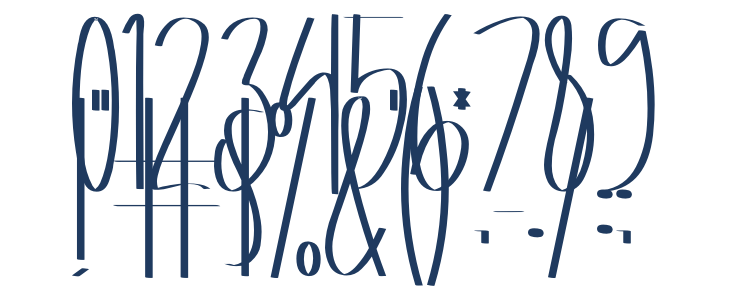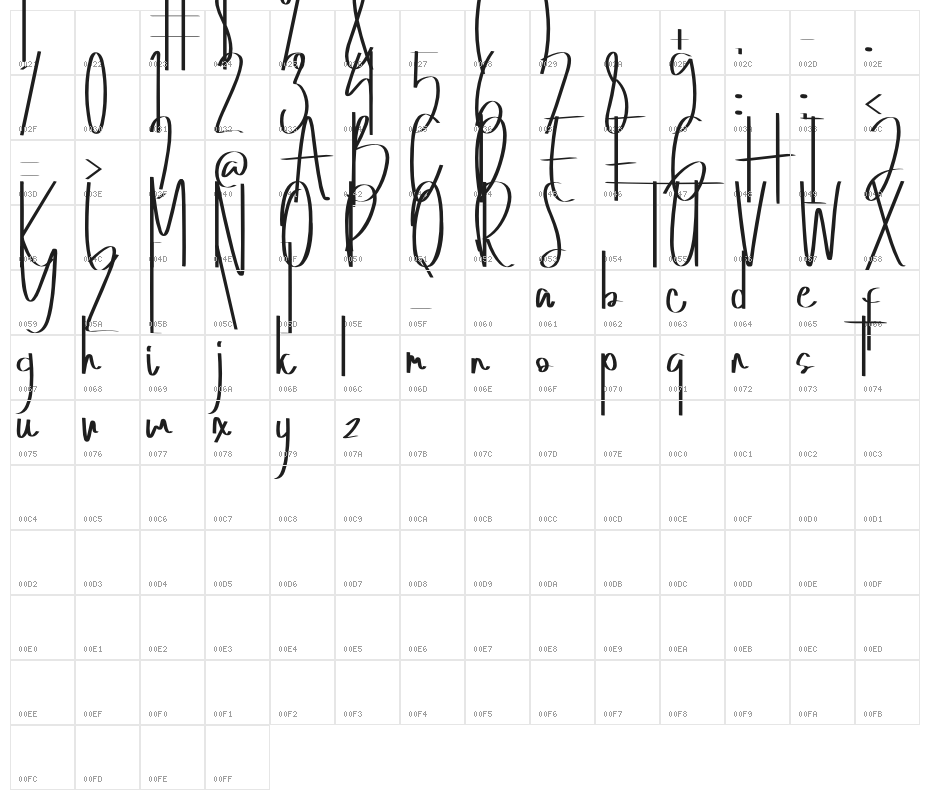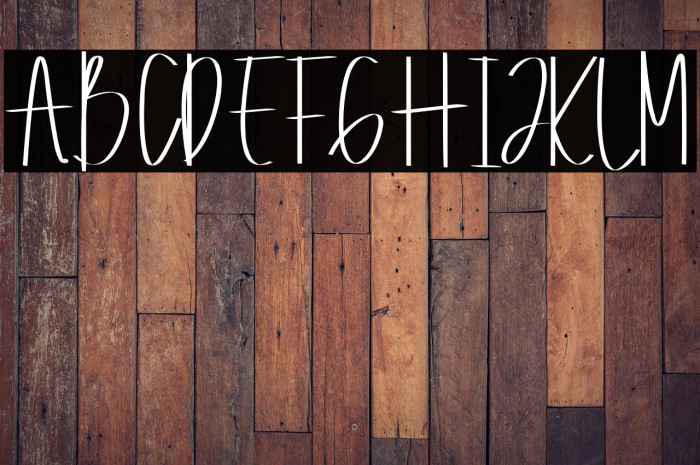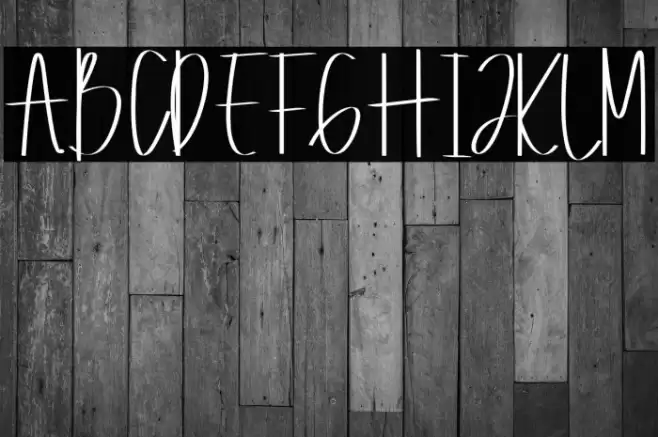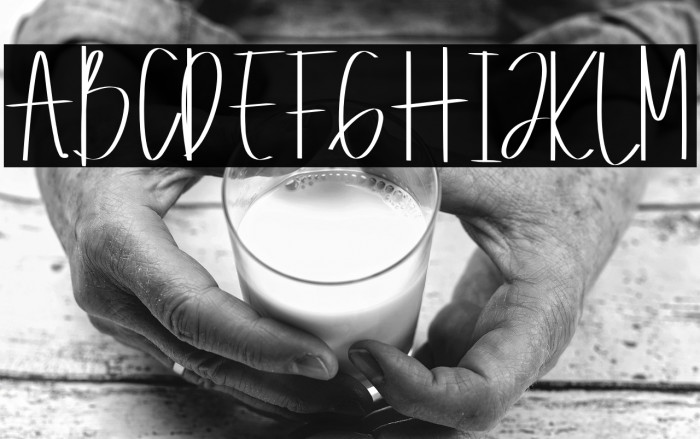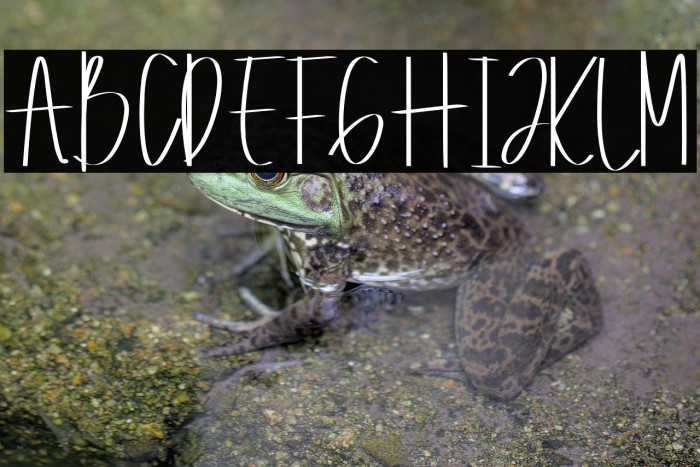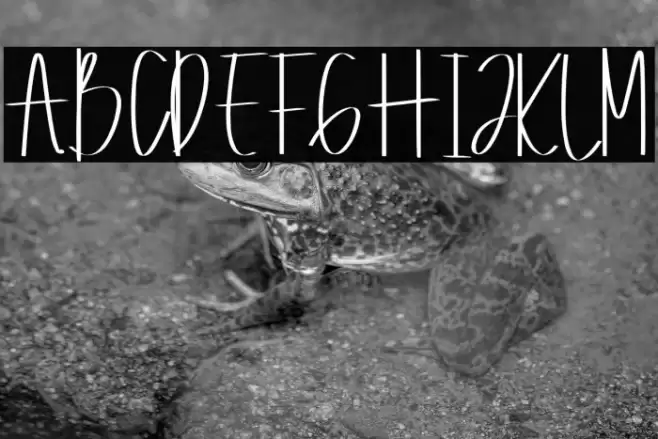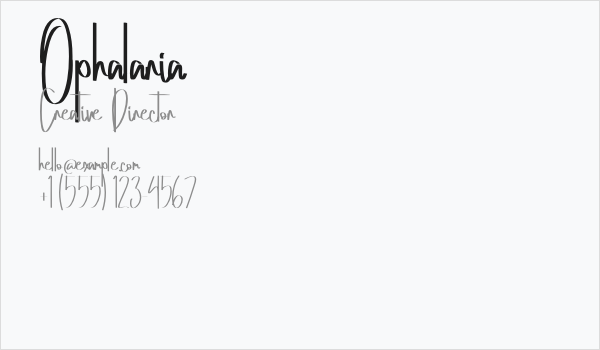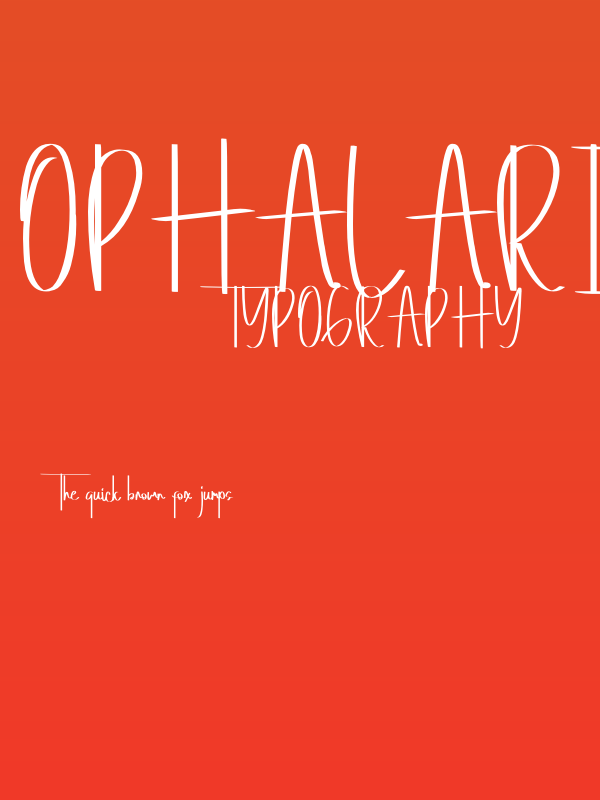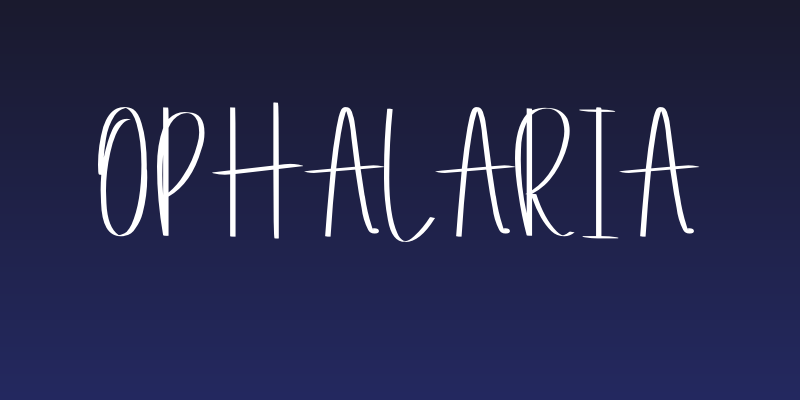
Ophalaria Font
Ophalaria Description
This font features a unique blend of tall, narrow uppercase letters and bold, expressive lowercase characters. The uppercase letters are thin and elongated, giving a modern and elegant appearance, while the lowercase letters are thicker with a playful, handwritten style. The numbers follow the same pattern, with a mix of thin and bold strokes, creating a dynamic visual contrast. Special characters are designed with creativity, maintaining the overall aesthetic of the font. The combination of these elements makes it suitable for projects that require a touch of sophistication and creativity.
| Proposed Projects | Ideal for branding, creative posters, and artistic invitations. |